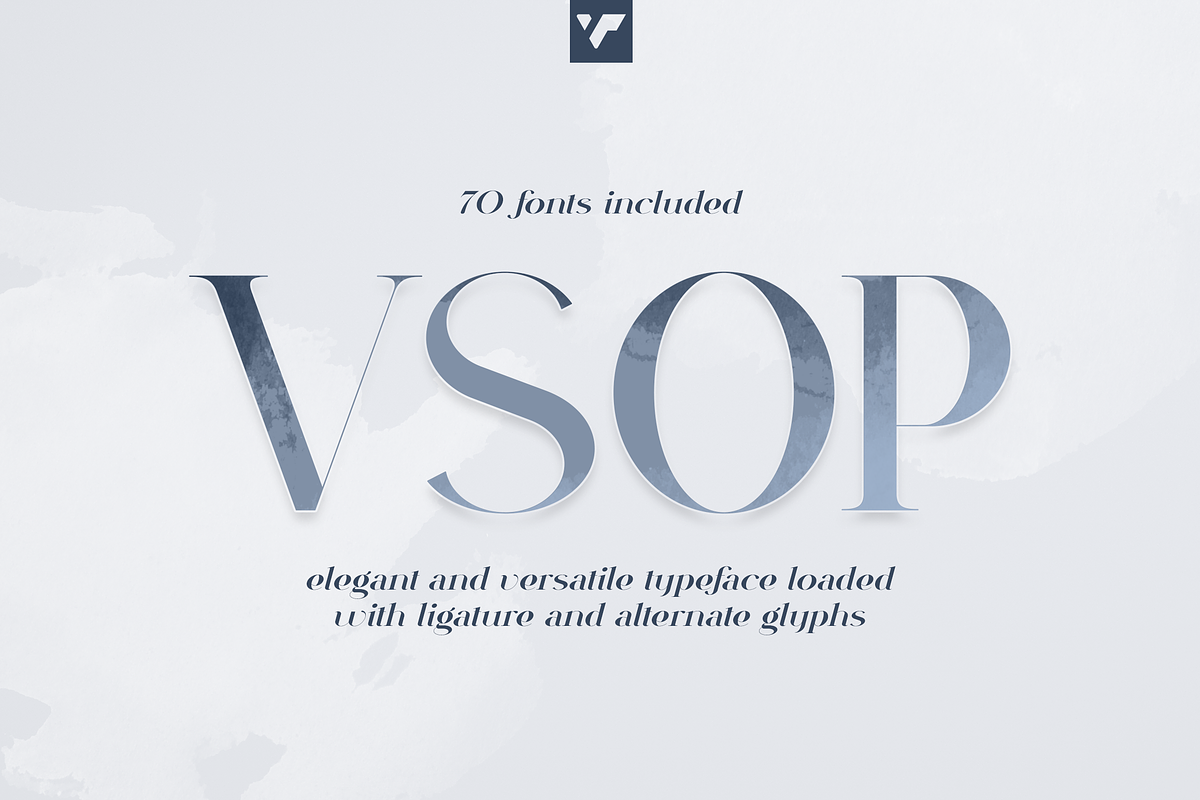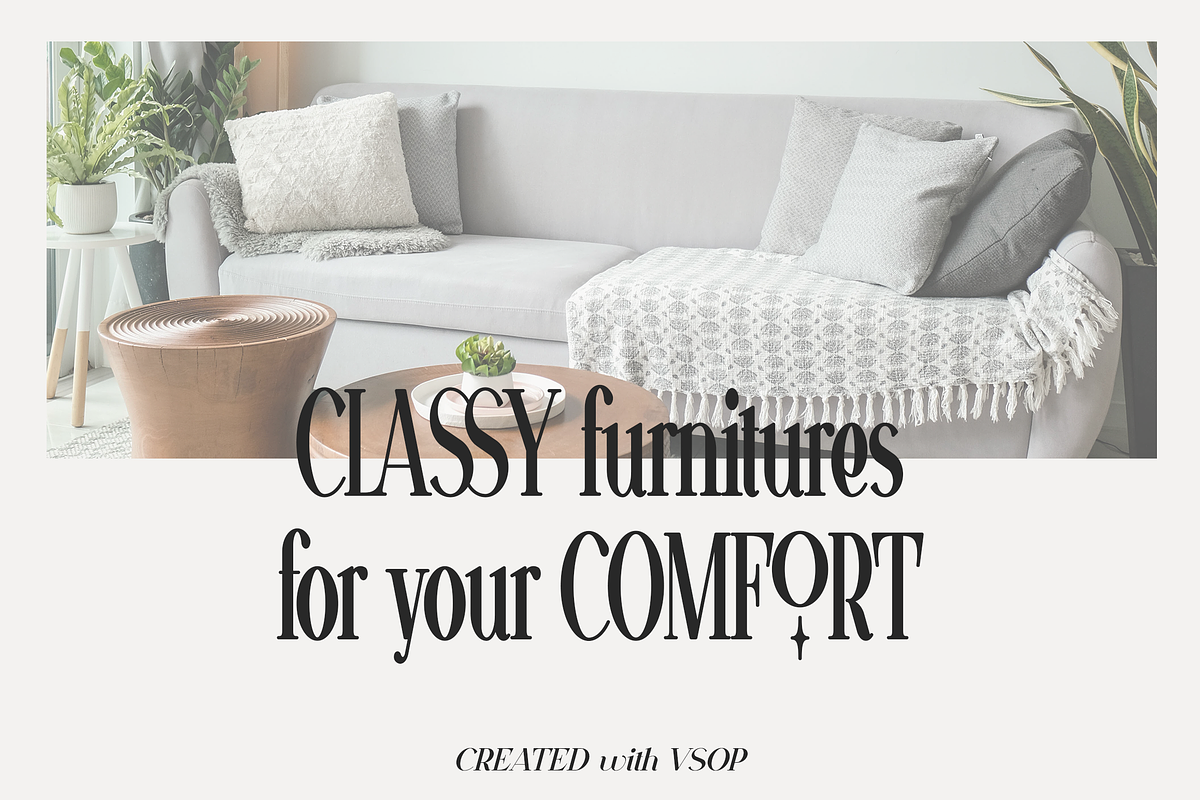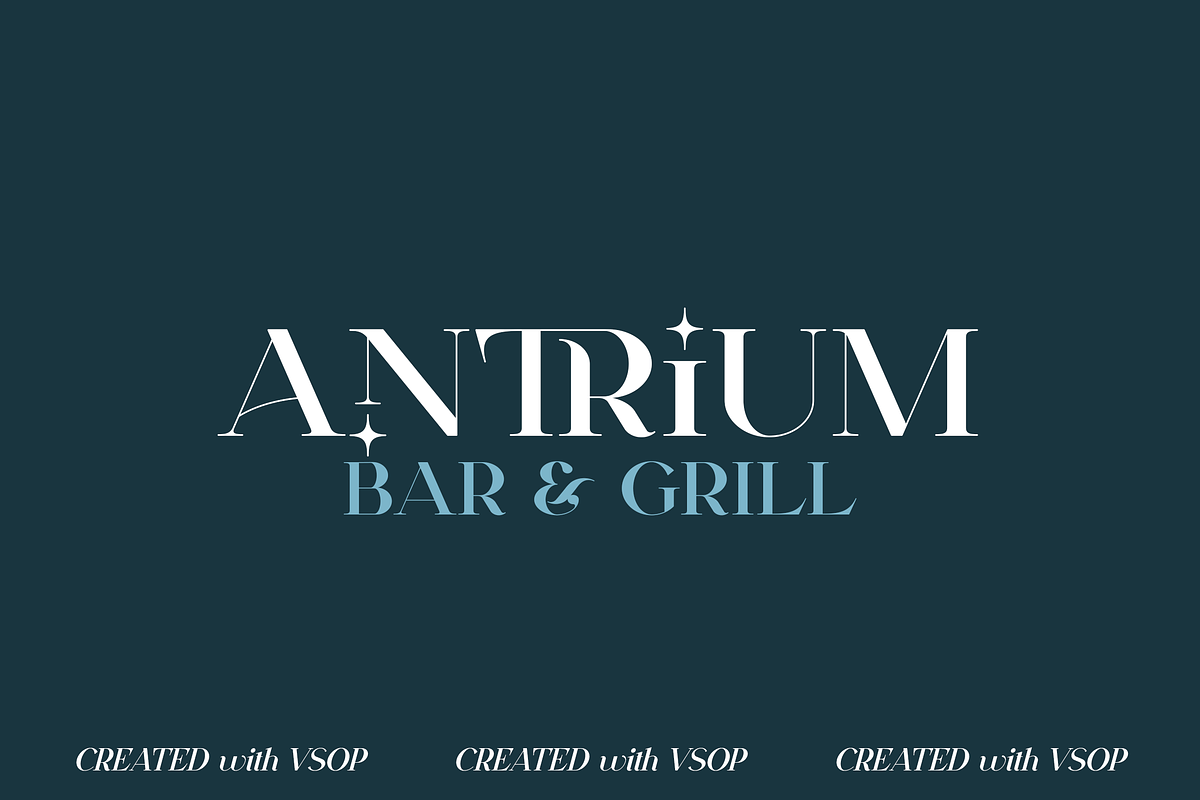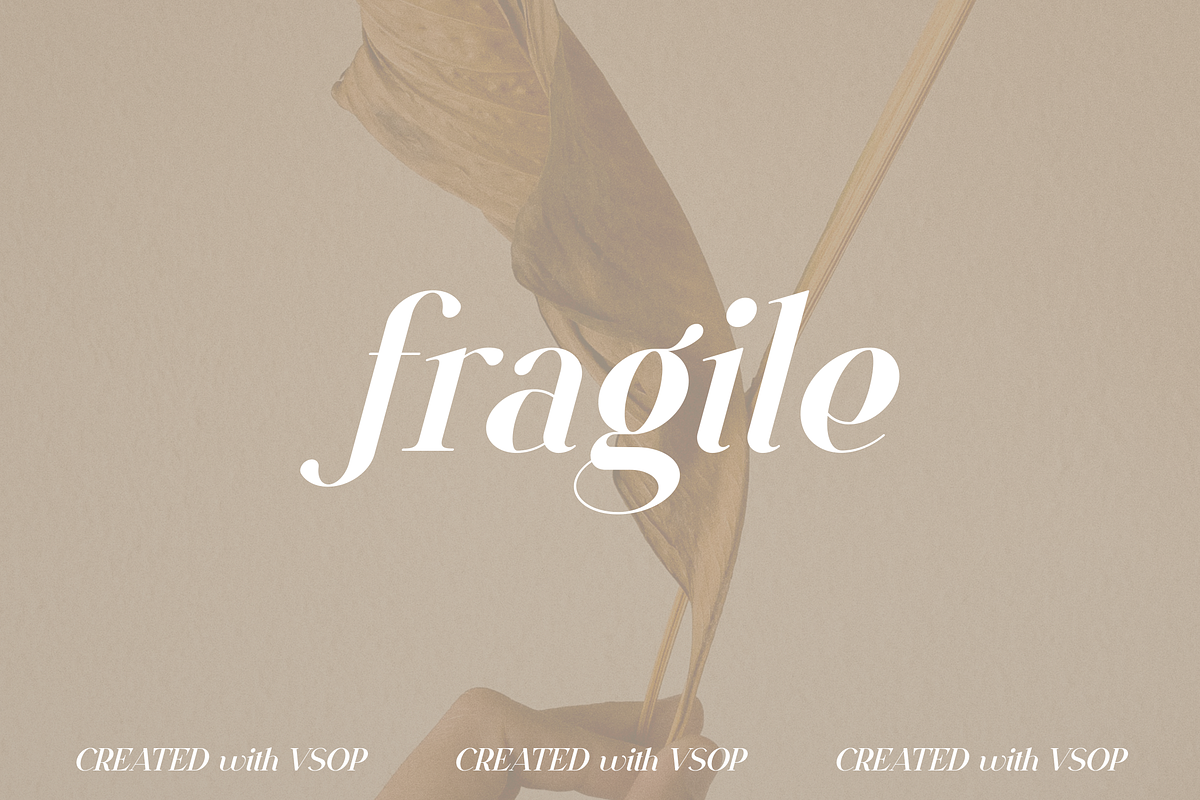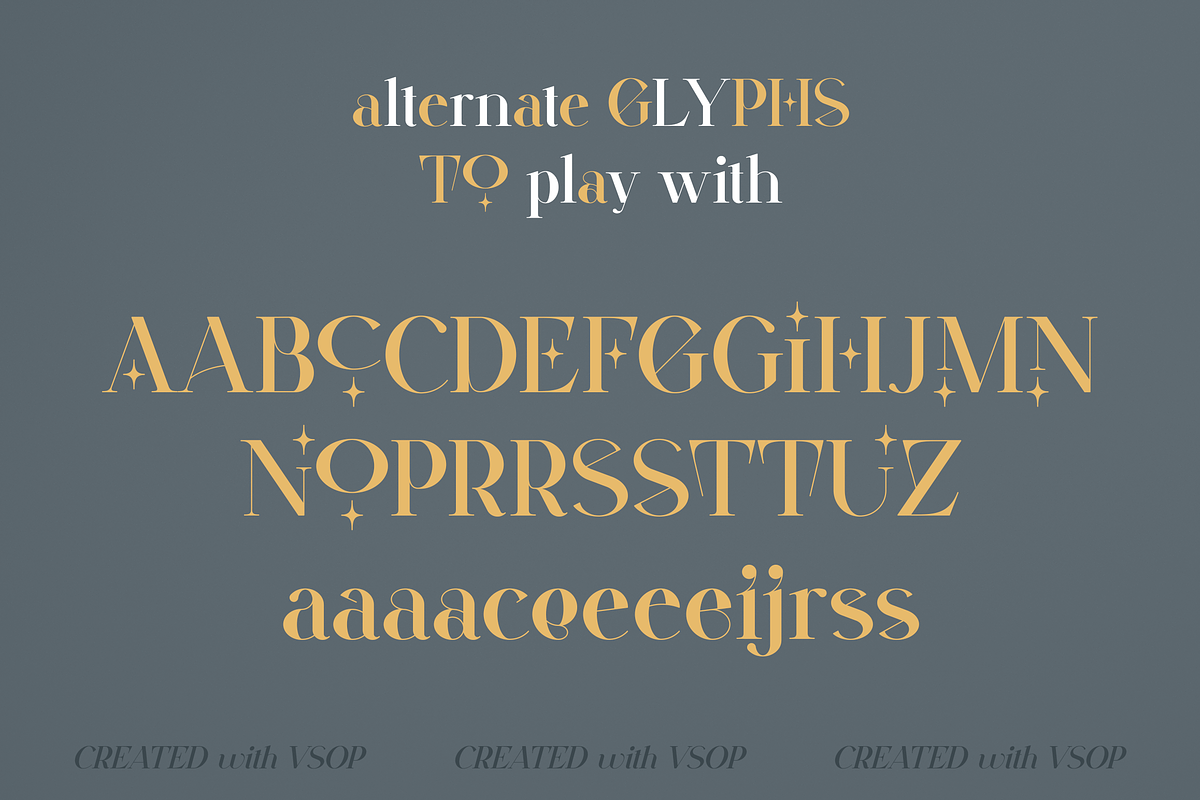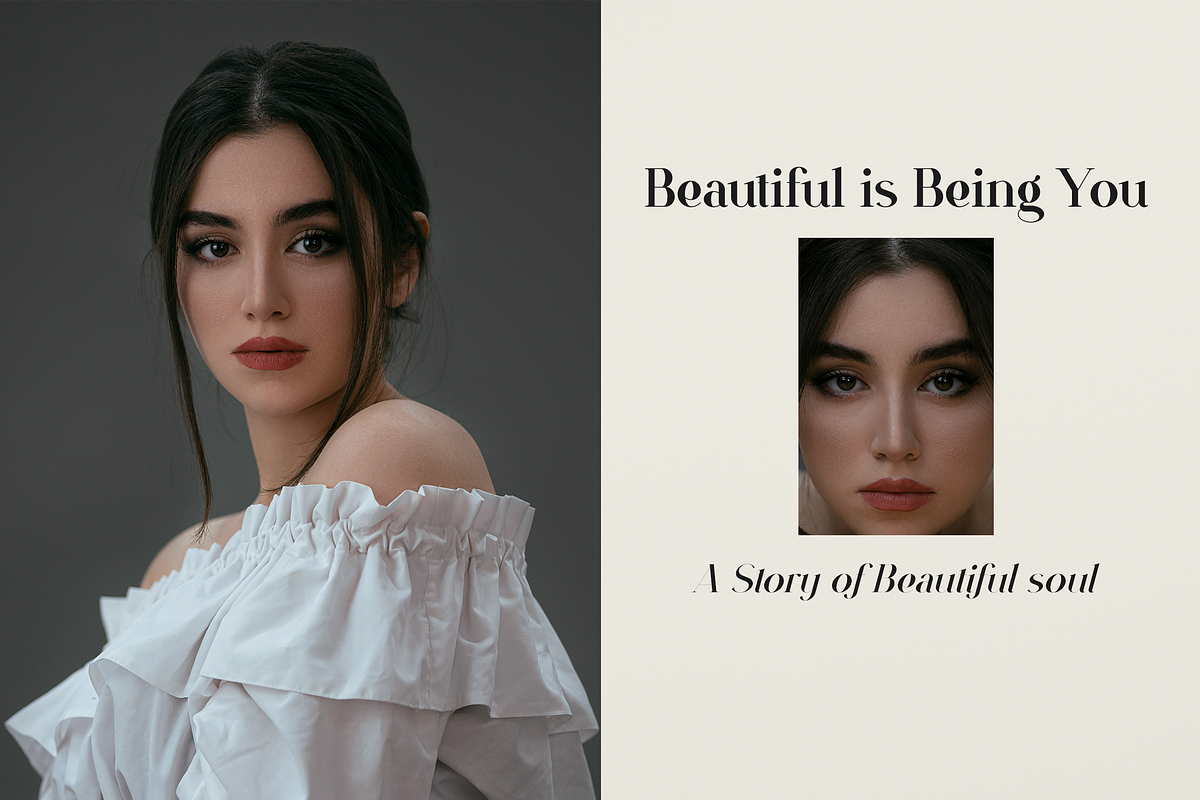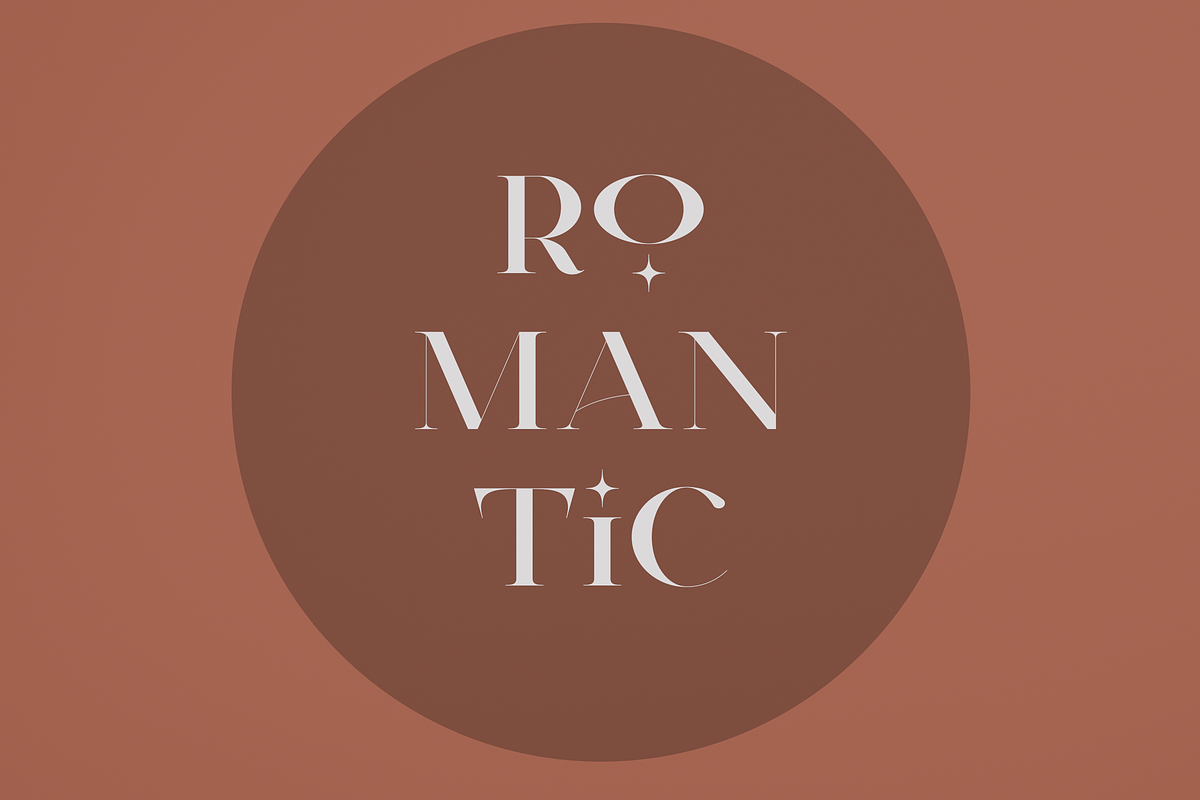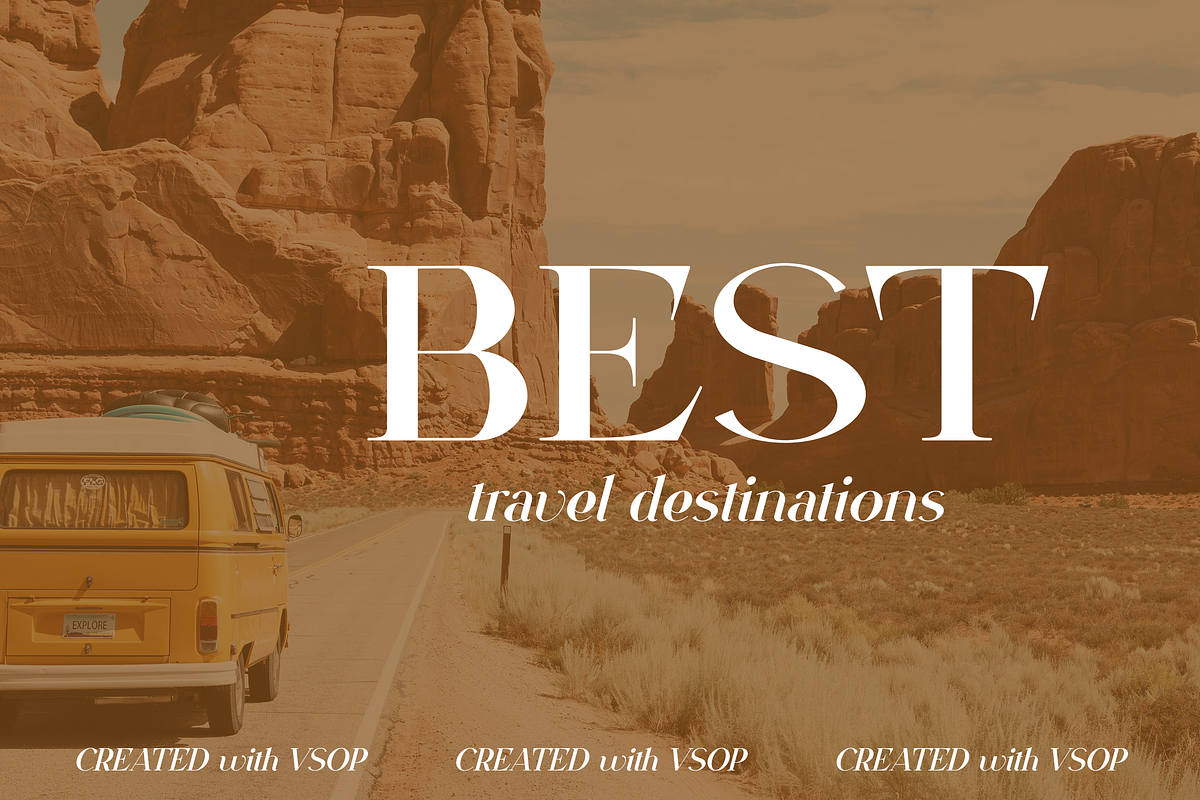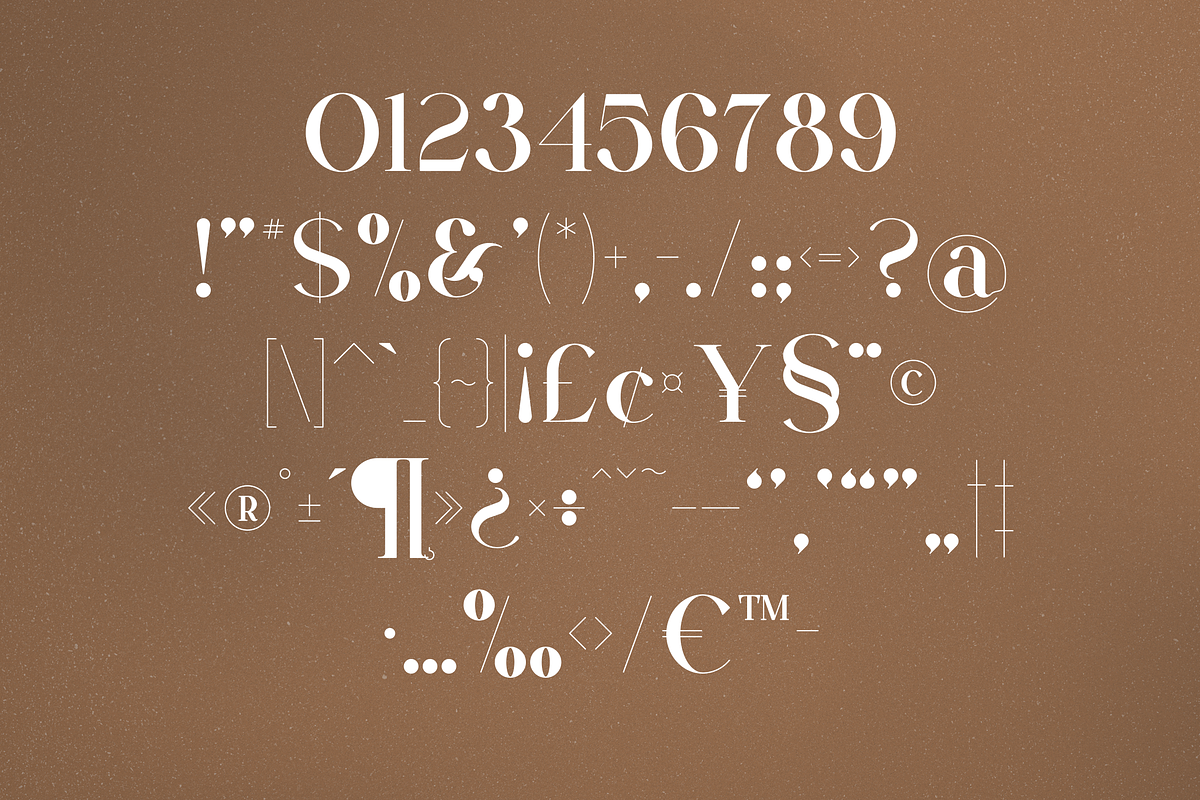
VSOP - elegant serif, 70 fonts
Introducing VSOP - a luxury typeface unlike any other. Enjoy the elegance of 87 languages and 70 font styles, from narrowest to widest, with alternate glyphs for customizing your typography unique look! From retro branding to wedding invites or logos – make each project stand out timelessly stylish with this versatile & beautiful font family.
- Uppercase, lowercase, numeral, punctuation & Symbol
- ligature glyphs
- alternates
- Narrowest - regular, italic with 7 weights
- Narrower - regular, italic with 7 weights
- Narrow - regular, italic with 7 weights
- Regular - regular, italic with 7 weights
- Wide - regular, italic and styled with 7 weights
- Multilingual support - 87 languages